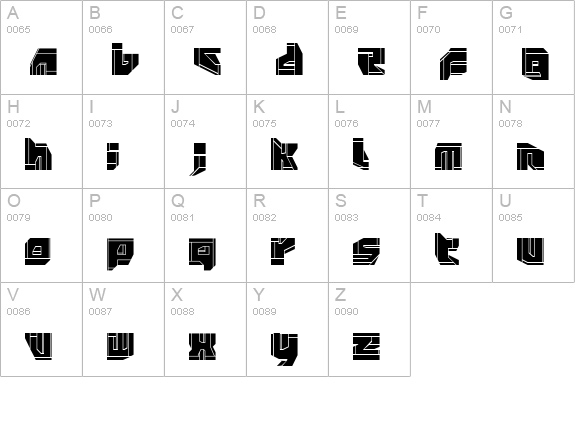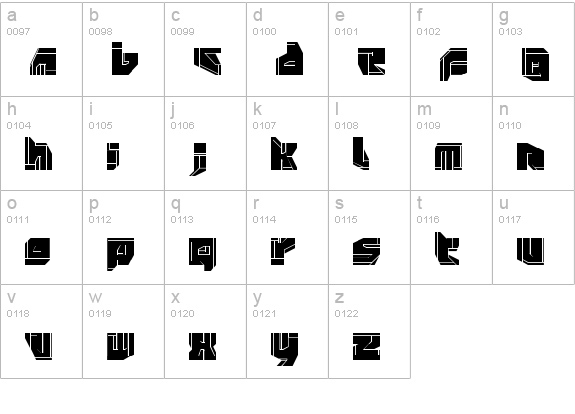
NeoPangaia[p2] Font Details
Introducing NeoPangaia[p2], a captivating and versatile font that effortlessly combines modernity with a touch of elegance. This font is the epitome of contemporary design, making it a perfect choice for various creative projects. Each letter is meticulously crafted, exuding a sense of sophistication and creativity. What sets NeoPangaia[p2] apart is not only its stunning aesthetics but also its accessibility. This font is freely available to download at FontsMarket.com, allowing designers and enthusiasts alike to incorporate it into their work without any barriers. By offering this font for free, NeoPangaia[p2] empowers creativity and encourages the exploration of new artistic possibilities. With its clean and crisp lines, NeoPangaia[p2] stands out in both print and digital mediums. Whether used in branding, advertising, web design, or any other creative endeavor, this font effortlessly captures attention and adds a touch of elegance to any project. Its versatility allows it to adapt to various styles and themes, making it a reliable choice for designers seeking a font that can seamlessly blend into any visual composition. NeoPangaia[p2] is more than just a font; it is an invitation to unleash your creativity and bring your ideas to life. Its wide range of weights and styles ensures that you can find the perfect match for your project, whether it calls for boldness or subtlety. With NeoPangaia[p2], you can effortlessly create eye-catching headlines, striking logos, or captivating typography that leaves a lasting impression. Embrace the freedom that NeoPangaia[p2] offers and let your creativity soar. Download this font for free at FontsMarket.com and unlock a world of artistic possibilities. Whether you are a professional designer or a passionate hobbyist, NeoPangaia[p2] is the ideal font to elevate your work and make a bold statement. Experience the seamless blend of modernity and elegance with NeoPangaia[p2] and watch your designs come to life like never before.